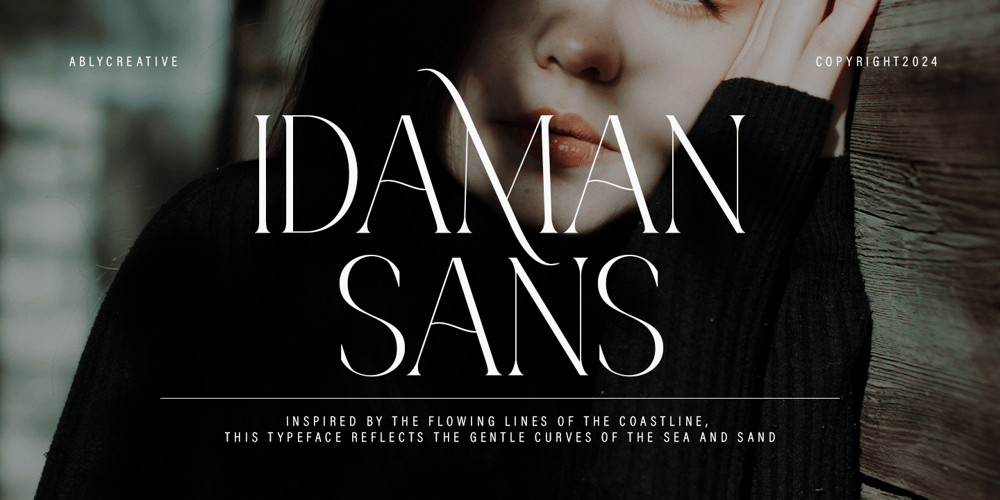
Idamansans
Idamansans font
Idamansans Font Family was designed by Amrullah Medan, Amrullah and published by Ably Creative. Idamansans contains 1 styles and family package options. Idamansans is a minimalist serif font that offers the perfect balance between simplicity and beauty. With a consistent and proportional letterform, this font is equipped with several alternate characters that allow for design flexibility without sacrificing elegance. Idamansans gives a modern and clean impression, making it an ideal choice for company logos that prioritize professionalism with a minimalist yet classy look. In addition, this font is also perfect for brochures that require a clean and elegant design, as well as promotional materials that want to highlight a refined and contemporary impression. Not only suitable for corporate purposes, Idamansans also presents an elegant nuance for wedding invitation designs, branded clothing, and special events. With smooth lines and measured proportions, this font provides a simple yet alluring beauty, allowing you to create a sophisticated look without looking over the top. Idamansans is the main choice for designers looking for a versatile font with a modern aesthetic, bringing a timeless style to every design creation.